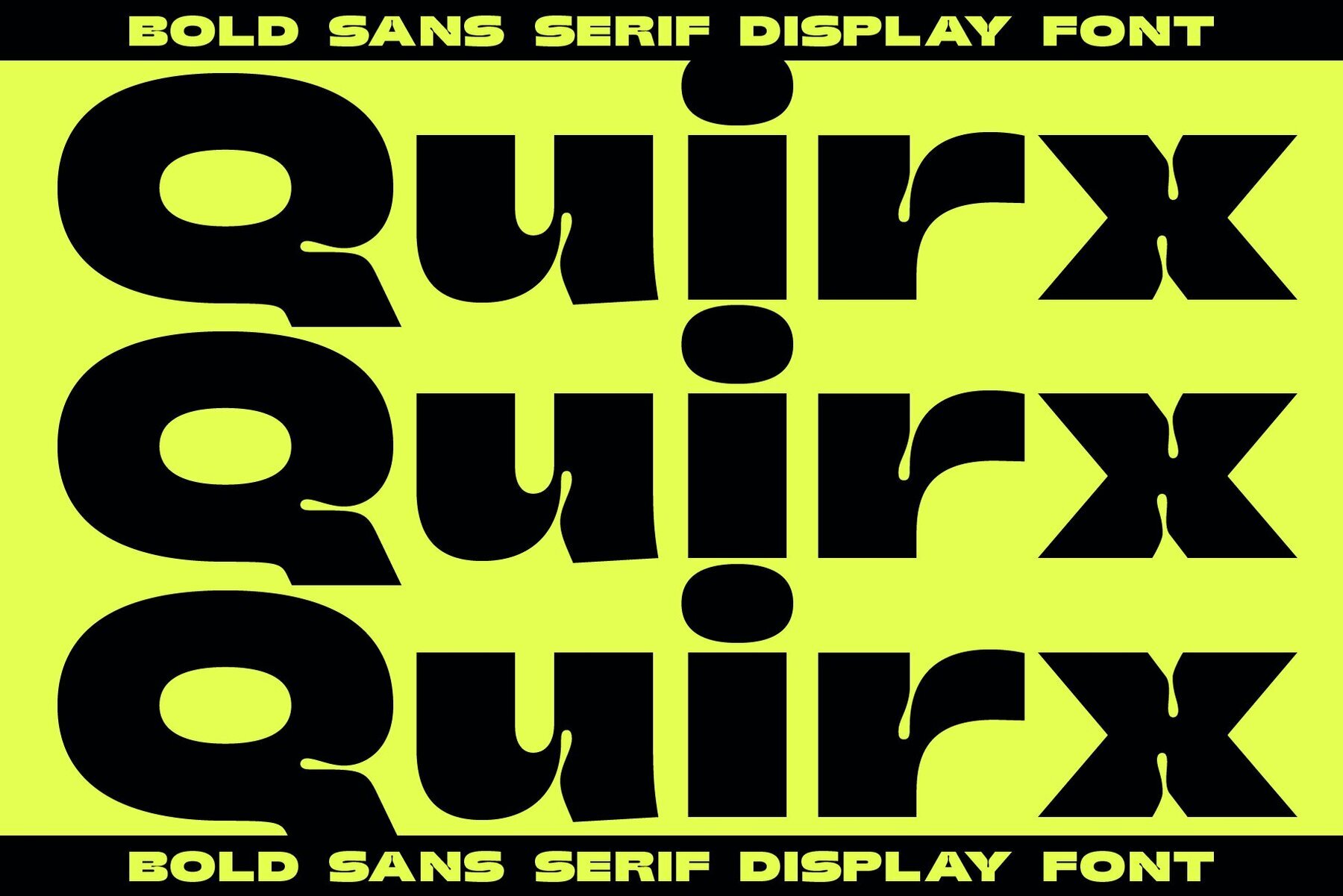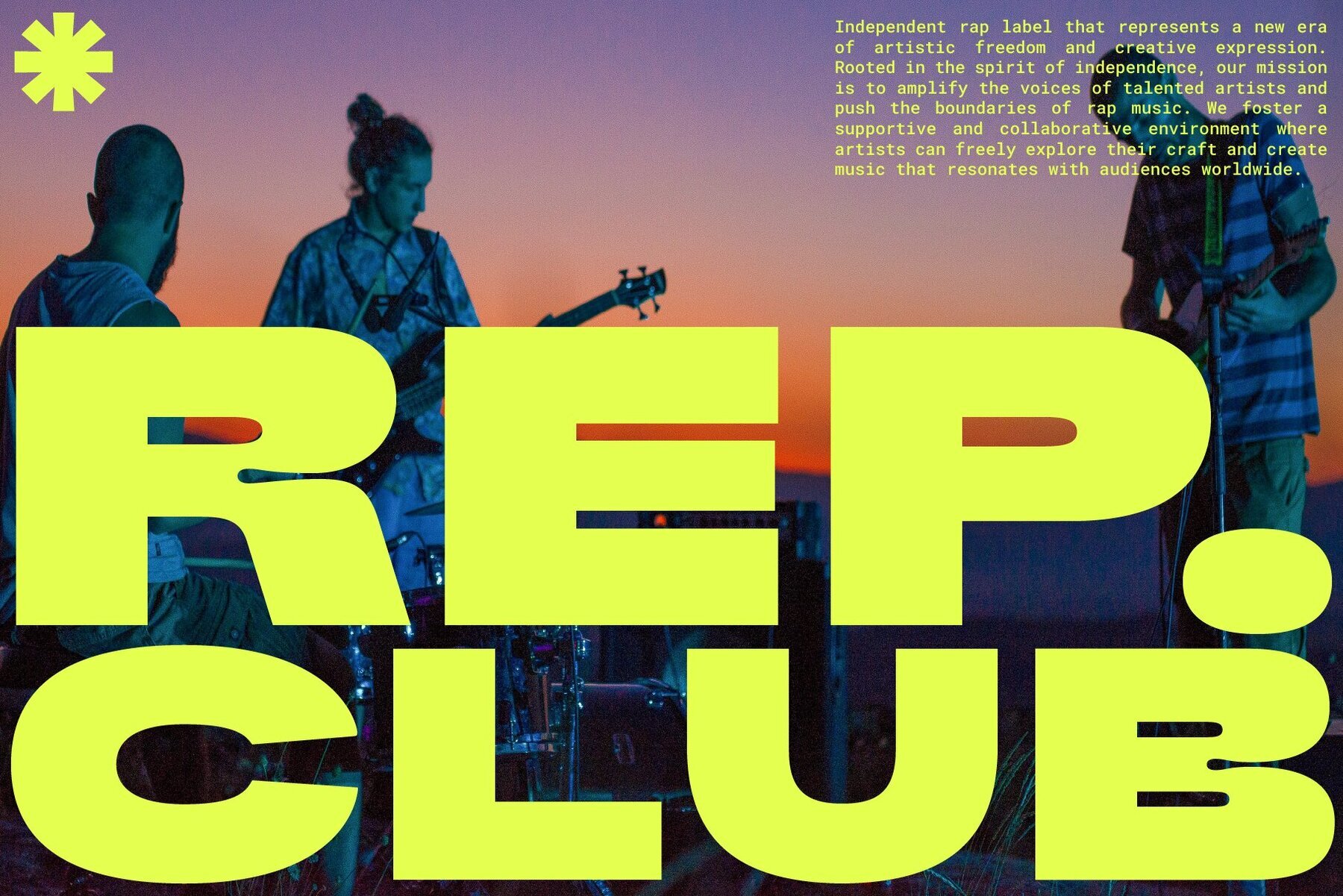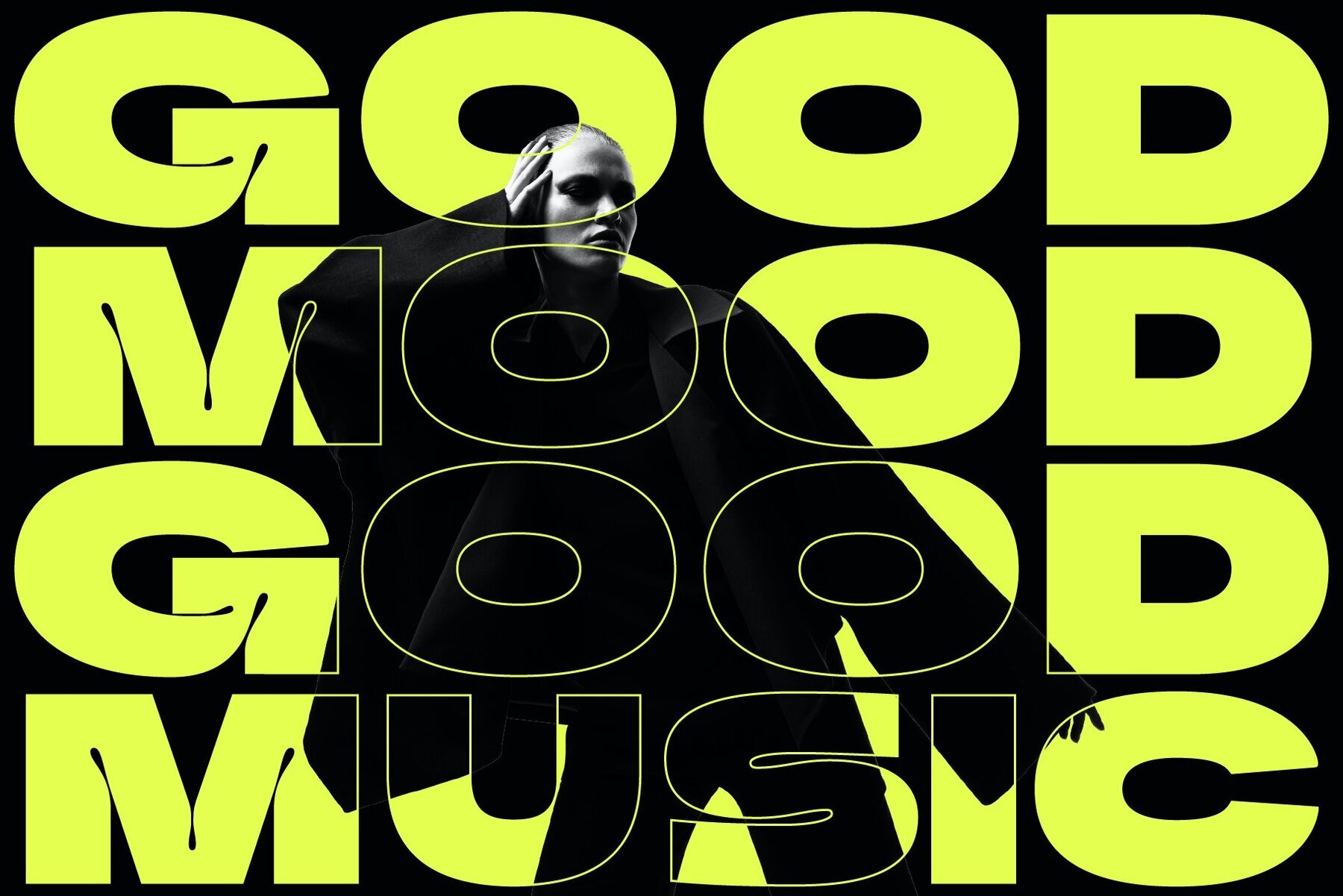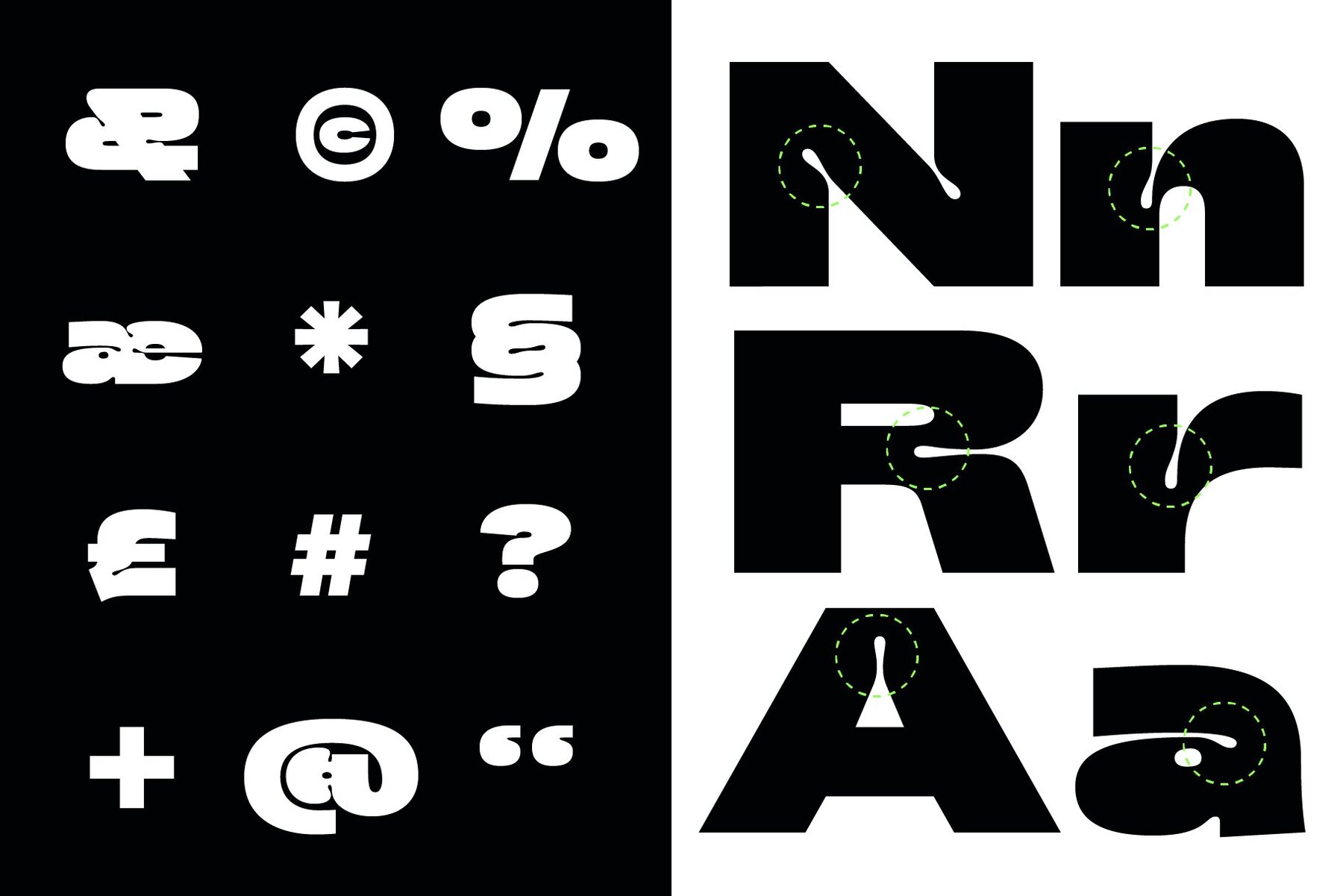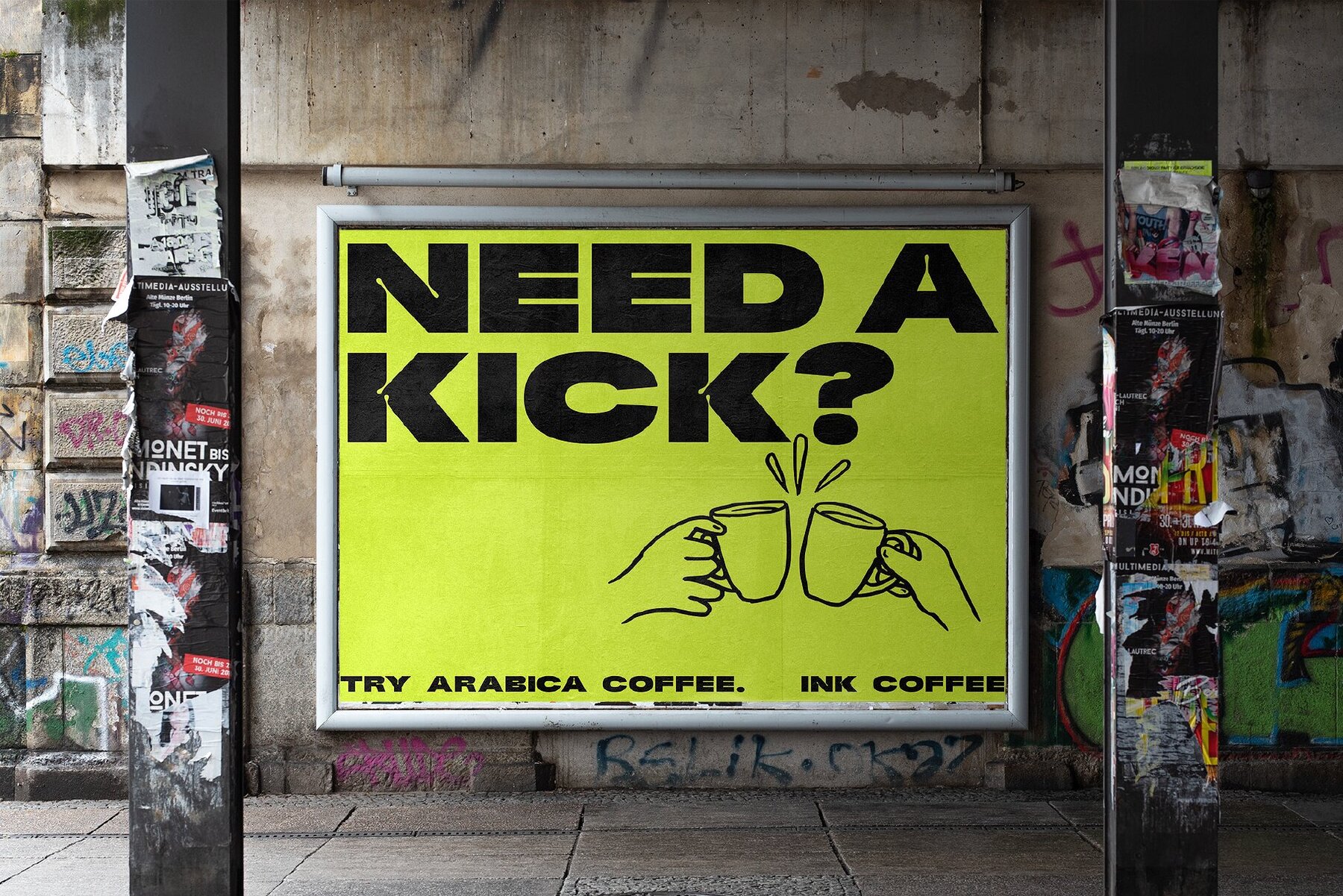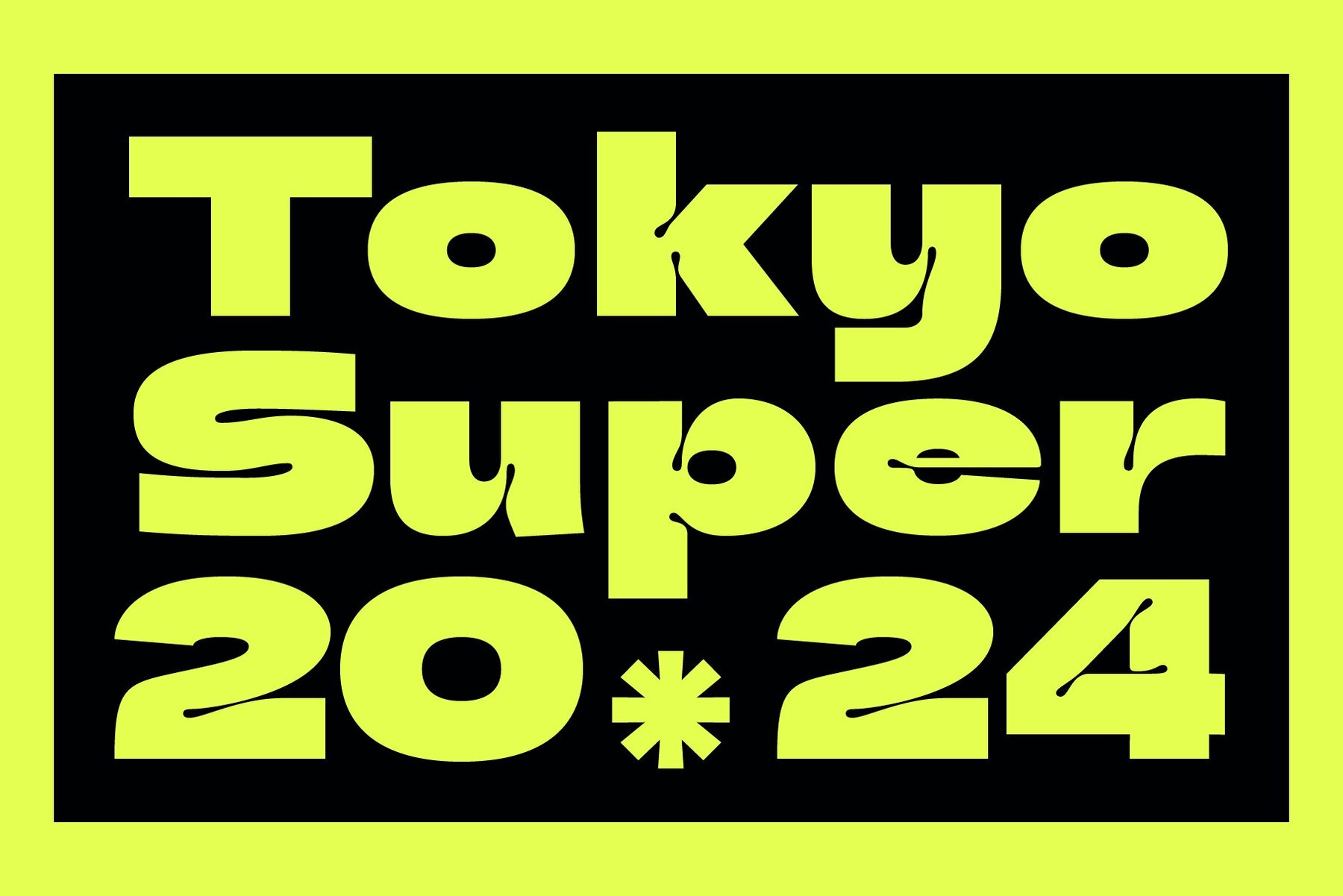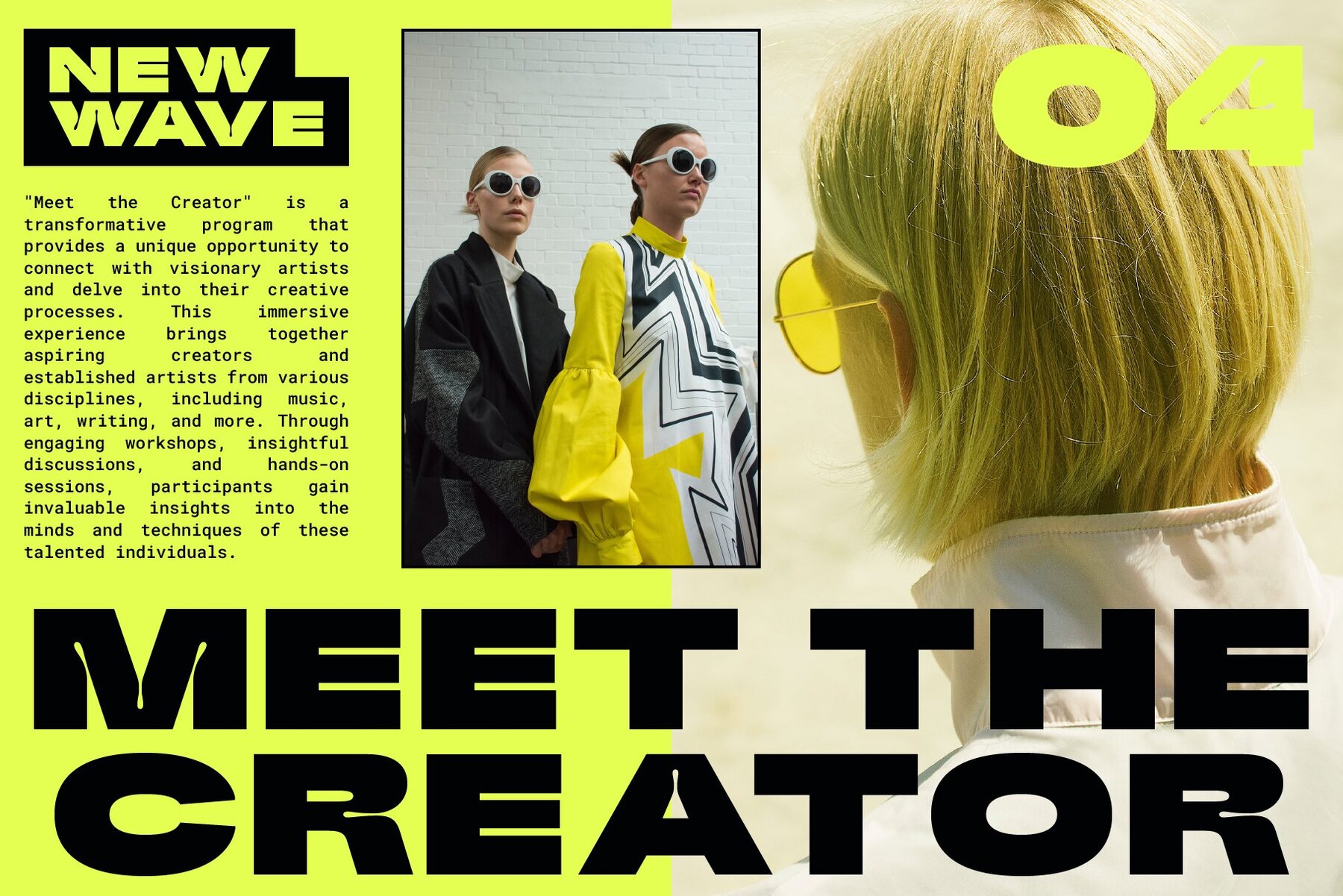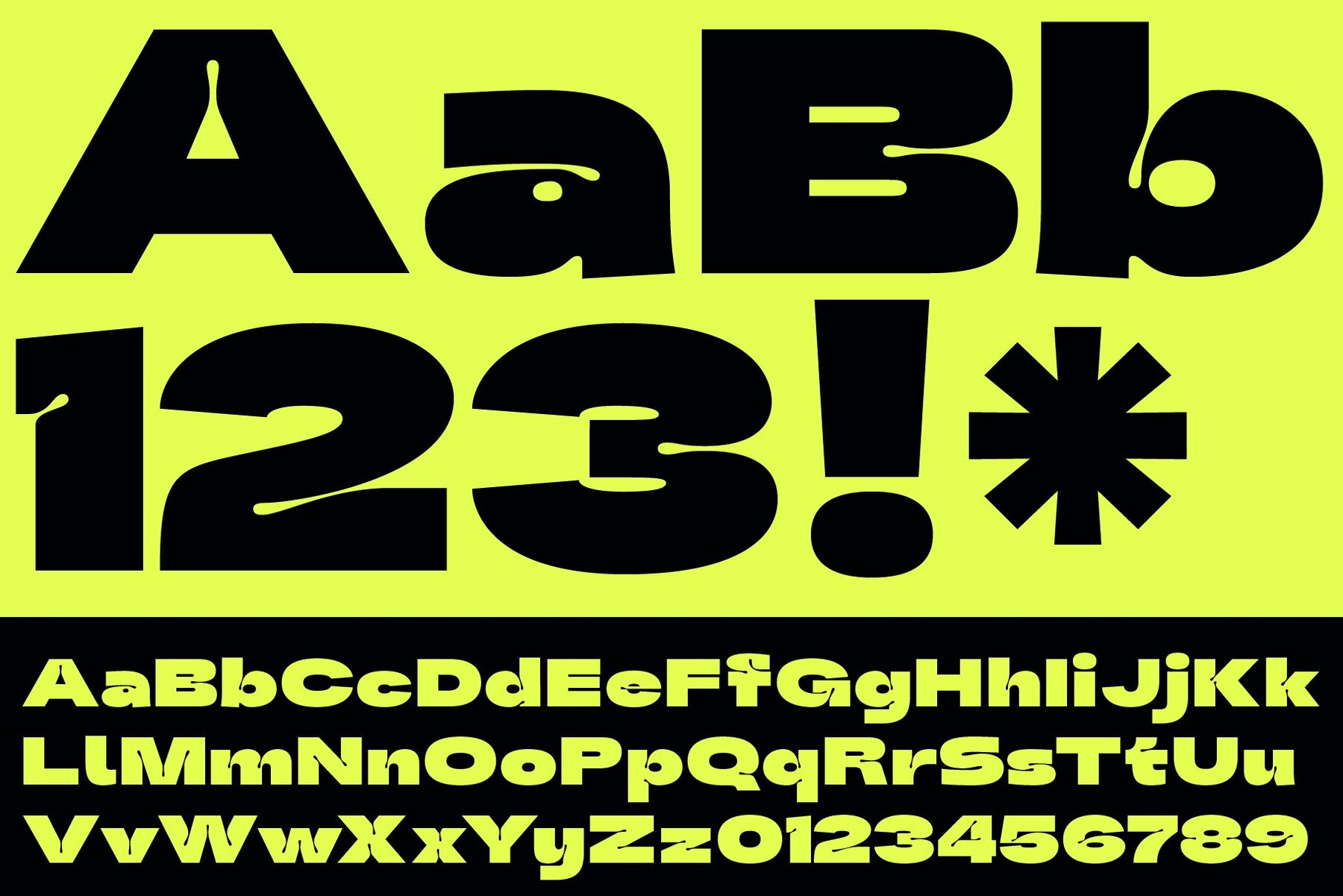
Quirx Font
Quirx Regular
Presenting "Quirx", a ground-breaking, modern display font designed ingeniously by the sought-after Surplus Type Co. With its intriguing, curvilinear ink trap stylings, Quirx is on its path to redefine the standards of bold sans serif fonts by reshaping text aesthetics on a wide scale format with enviable perfection. This unique font design is not just about texts, it's a confluence of art and communication that draws in the eye, captivating audiences instantly. Quirx serves as a dynamic tool for graphic designers and marketing firms, promising to lend a touch of whimsical yet sophisticated flair to your designs. With an uncanny ability to invigorate Logos, Branding, and immerse viewers in your Landing Page Typography, it's a distinctive font that effortlessly turns words into statement pieces. Designed with the goal of pushing boundaries, Quirx doesn't blend into the background, it boldly makes its presence felt. Submerge into the world of Quirx and let your designs speak for themselves.Experience the Fresh Allure of Quirx: Redefining Modern Display Fonts